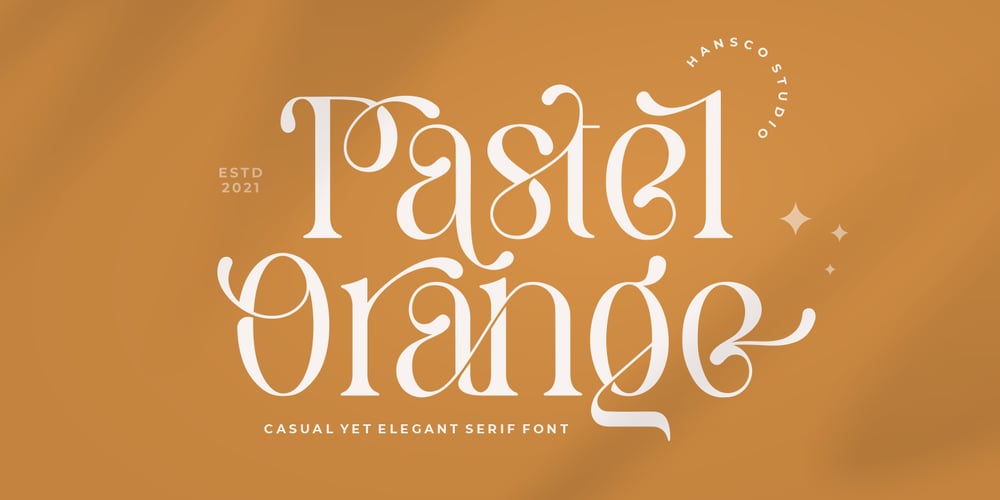
Pastel Orange Font Family was designed by Burhan Afif and published by HansCo. Pastel Orange contains 1 styles and family package options. Pastel Orange is incredibly casual and elegant serif font with rounded tails that will add a timeless look to any design project!. Very suitable for logo, brand identity pack, packaging designs and many more..This font is PUA encoded which means you can access all of the glyphs and swashes with ease via Character map or Character Viewer in mac!Features : uppercase & lowercase numbers and punctuation multilingual alternates PUA encoded We highly recommend using a program that supports OpenType features and Glyphs panels like many of Adobe apps and Corel Draw, so you can see and access all Glyph variations.how to access alternate?: https://hanscostudio.com/tutorial/Enjoy!